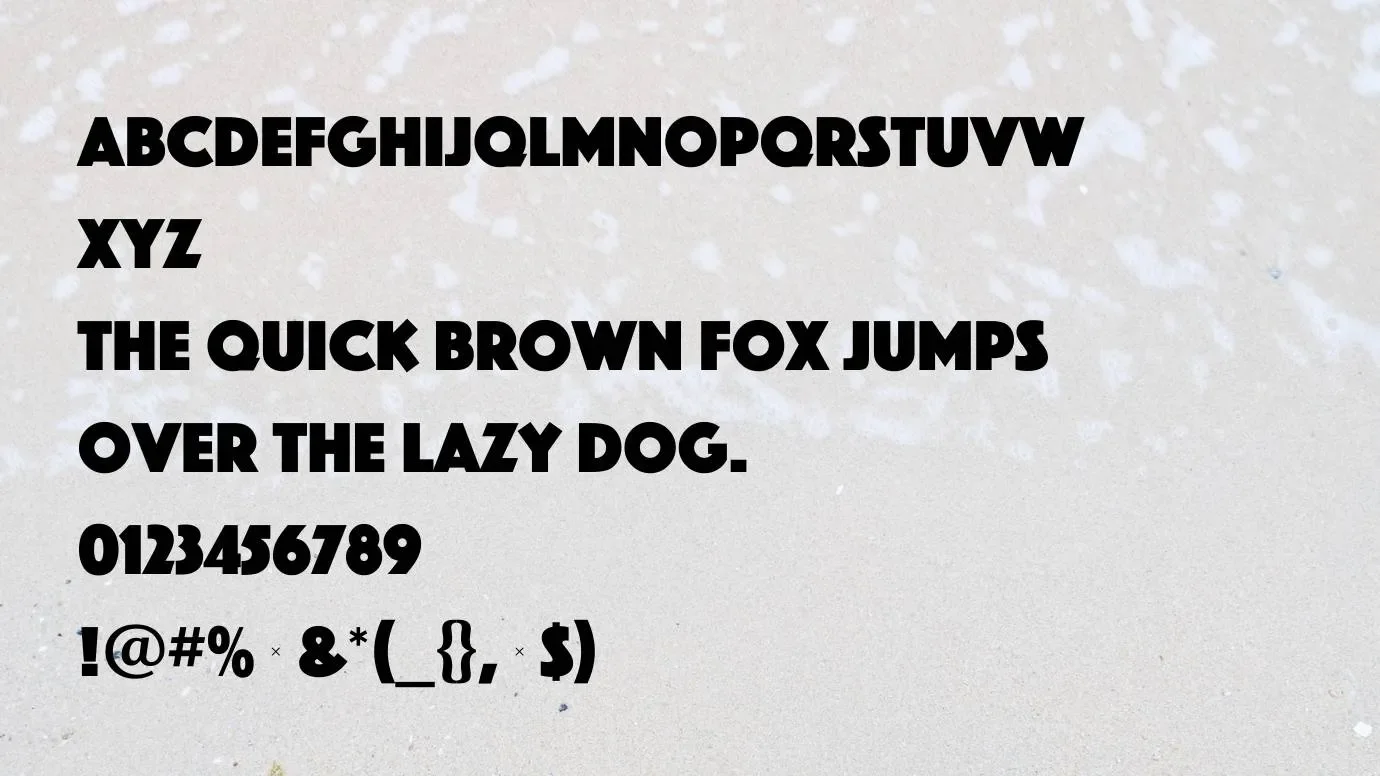
In this post, we are introducing the Phosphate font that belongs to the sans serif typeface family. The designers of this stunning typeface are Steve Jackaman and Ashley Muir and released through Red Rooster Collection in the year of 2011. This is an all caps sans serif typeface that comes in 2 exclusive styles including RR Inline and RR Solid, each style has OpenType features along with standard texture ligatures, and glimpse.
An appropriate typeface that is suitable for giving an extraordinary touch to designs. This typeface can support vast languages and has many interesting characters including uppercase letters, general punctuations, symbols, updated icons, and many special characters.
This typeface has extremely arranged letterforms and tasteful characters that are fits for headlines and titles as well as any size of the text. You can use this typeface for creating quotes, product titling, magazines and newspaper headings, website header and footers, shop/store names, video games titling, and many more.
Due to its bold stylish characters, it is the most ideal and downloaded font on the internet. It is very suitable for logos, apparel, website designs, art designs, homeware designs, t-shirt designs, banners, book covers, mug designs. business cards, blog designs, templates, brochures, magazines, certificates designs, invitation cards, hoodies, as well as product packaging, branding projects, and many related designs.
- Phosphate RR Inline
- Phosphate RR Solid
What is phosphate font?
This is a wonderful sans serif typeface that comes in all case lettering, geometric shapes, unique glyphs, and many special characters that make it the most valuable font in the type market. It was designed by teve Jackaman and Ashley Muir.
Phosphate is an ultra-modern sans serif typeface that has amazing thick strokes. This font better works as your web and desktop font.
It also shares some similarities with some other bold sans serifs but Verdana font has features that are very similar to this typeface.